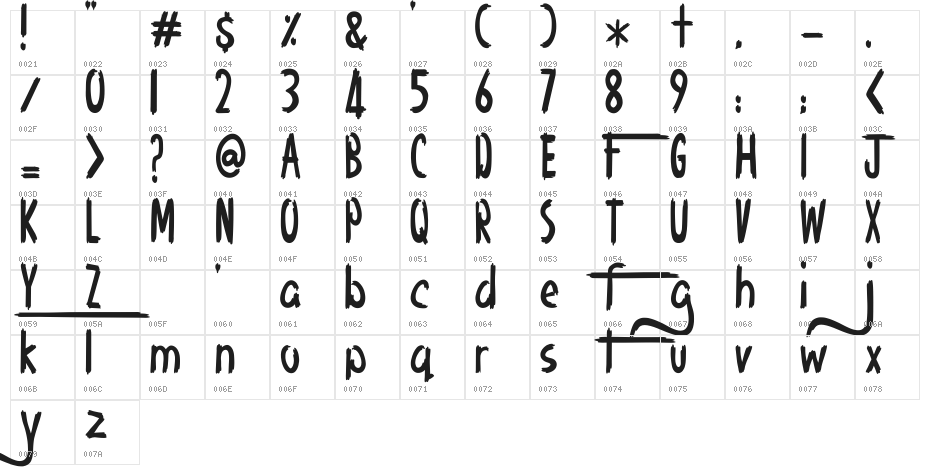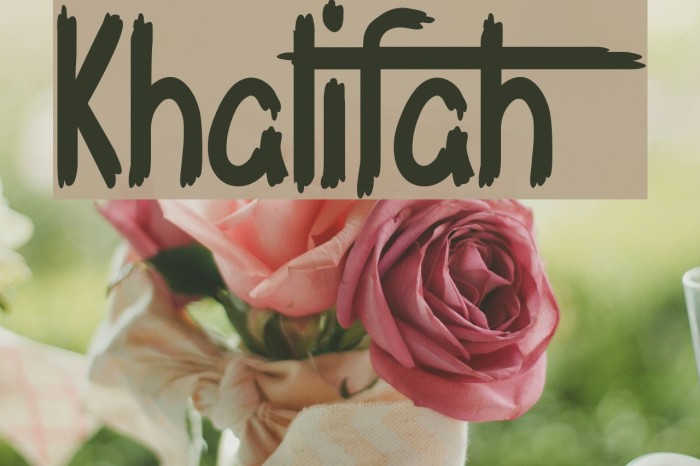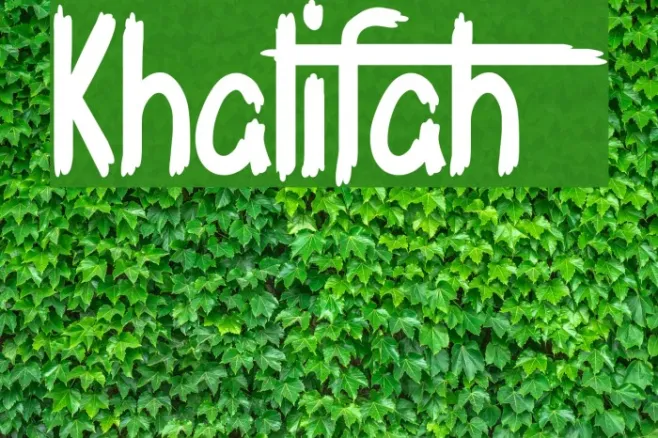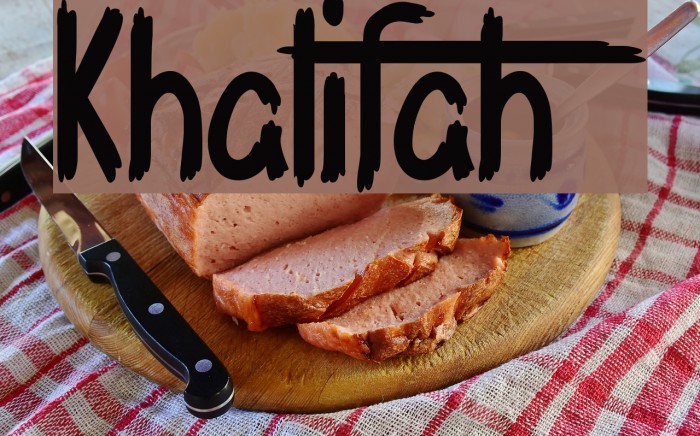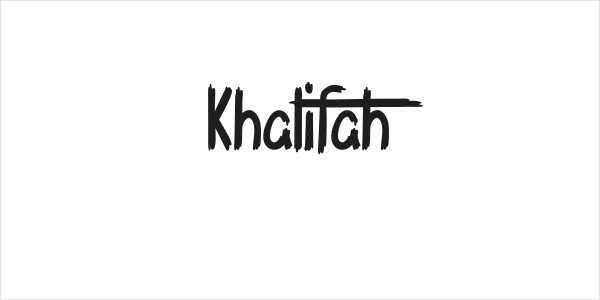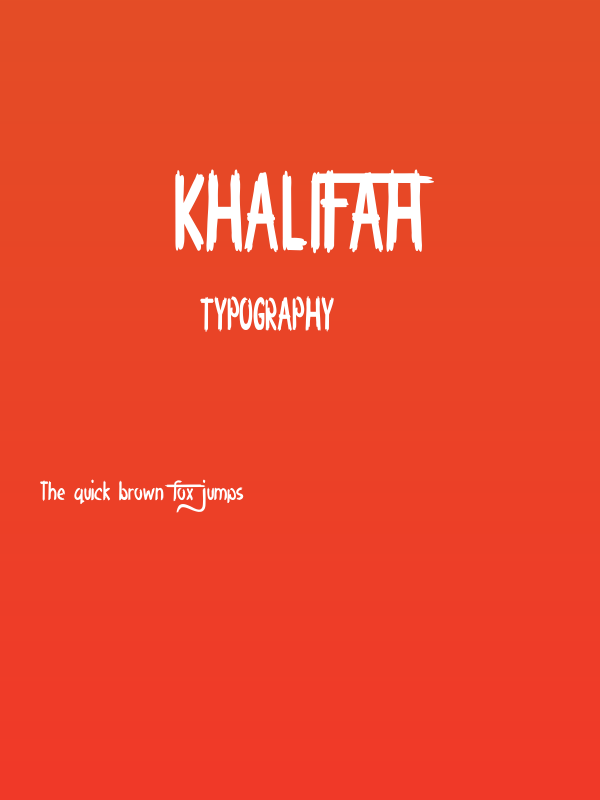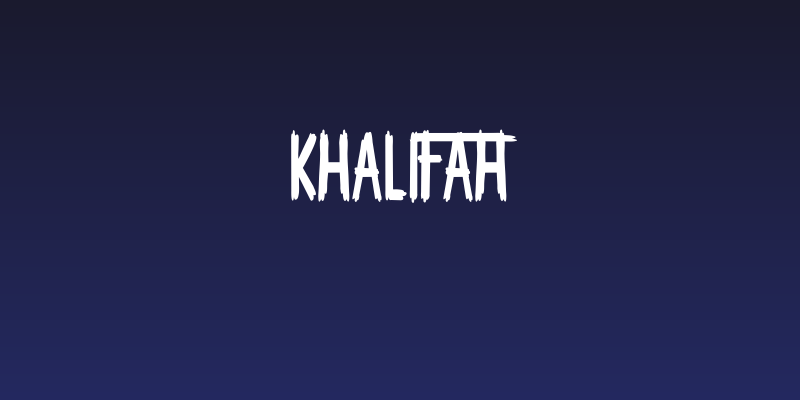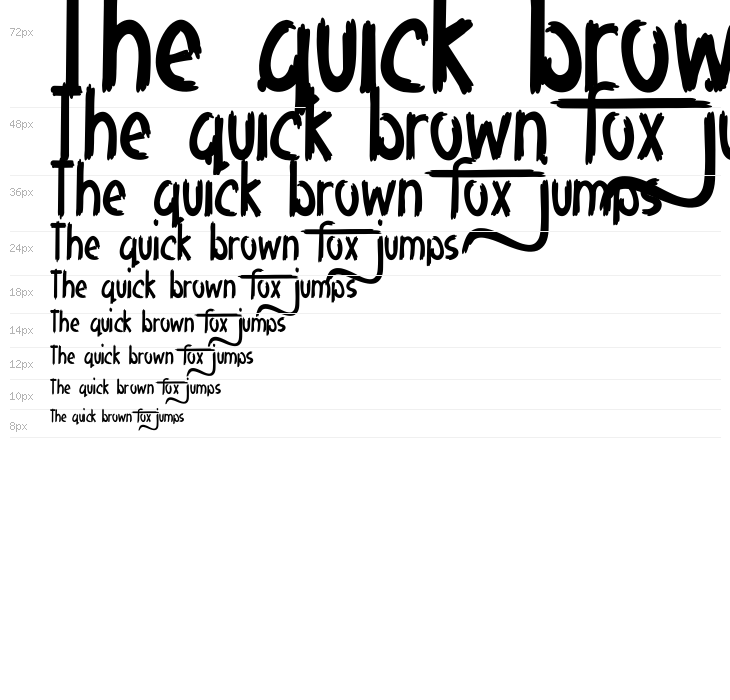
Khalifah Font
Khalifah Description
This font exudes a bold and expressive character with its thick, brush-like strokes and dynamic forms. Each letter appears as if it has been hand-painted, giving it a raw and artistic feel. The uppercase letters are tall and commanding, while the lowercase letters maintain a consistent style, adding to the cohesive look. The numerals and special characters follow the same energetic style, making the font versatile for various creative applications. The overall design is both modern and artistic, suitable for projects that require a strong visual impact.